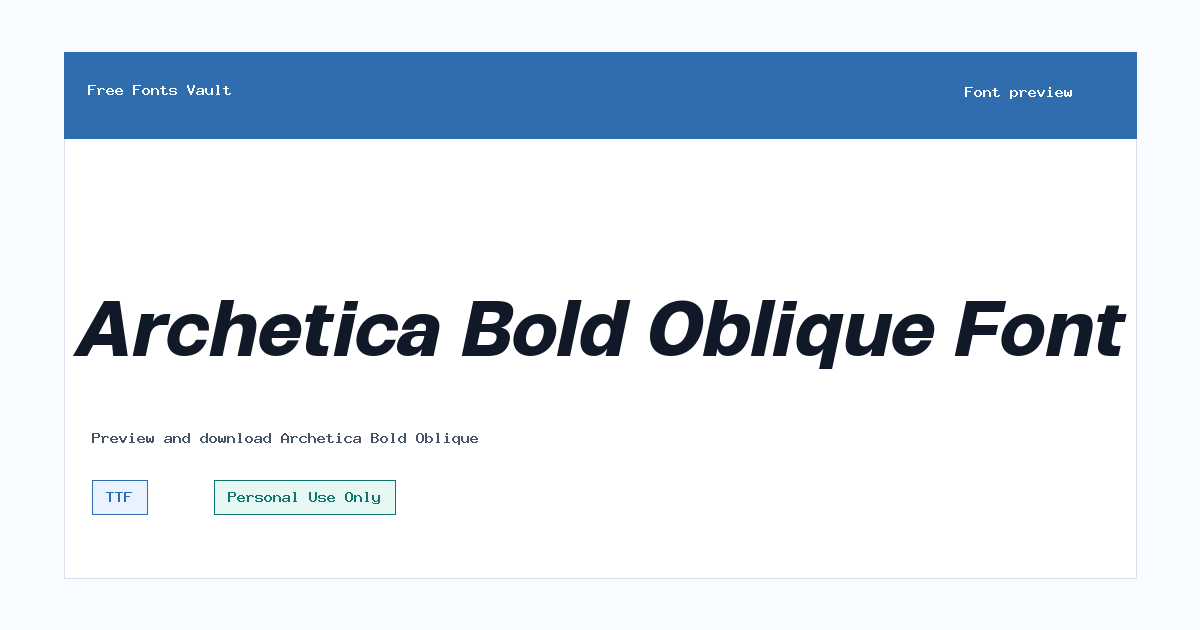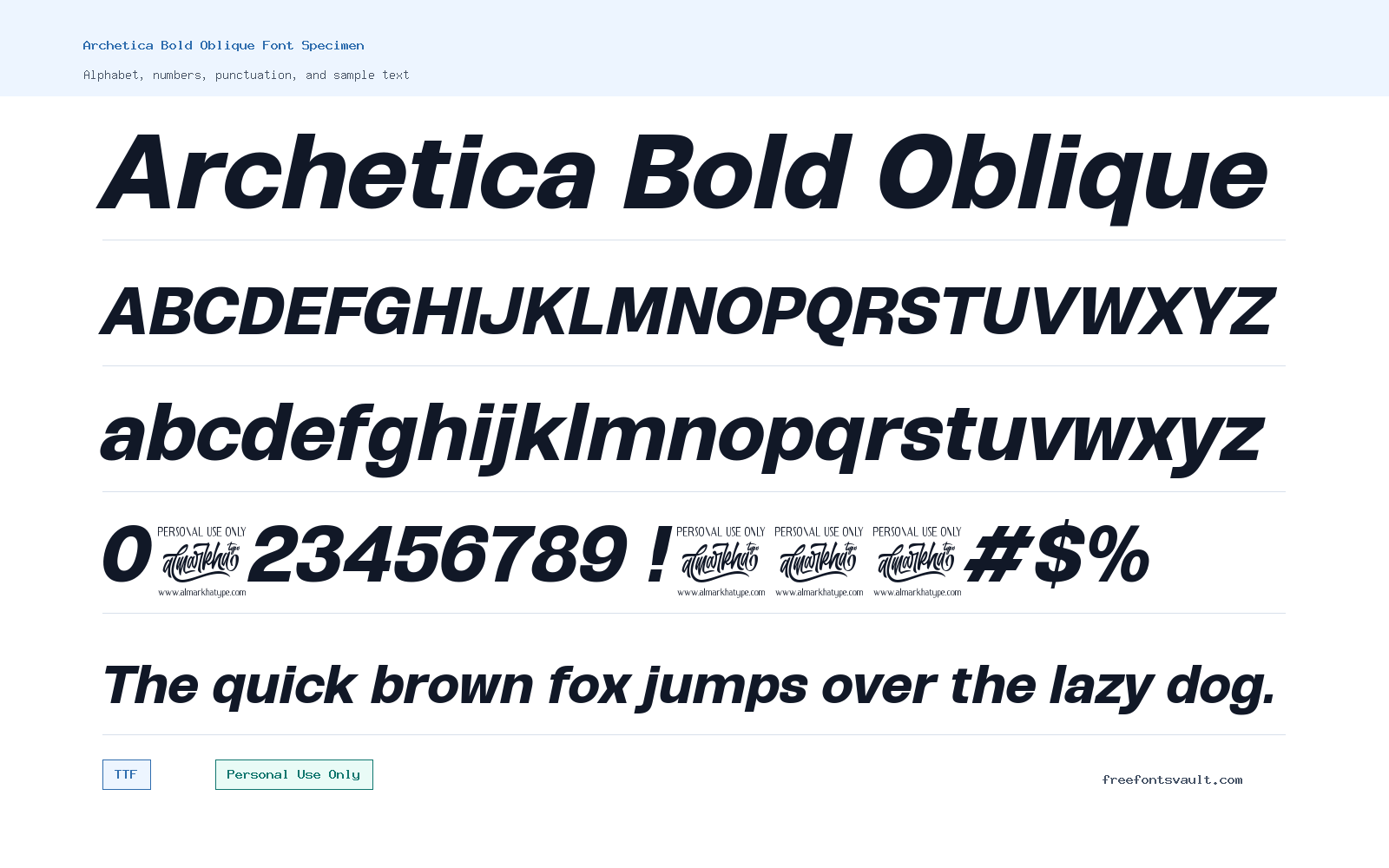
Archetica Bold Oblique
- Designer Ridwan Fadilah & Malik Wisnu
- Foundry Almarkhatype
Archetica Bold Oblique font.
Archetica Bold Oblique is a bold italic sans serif font with a forward-leaning stance, useful when you want display text to feel firm, active, and clean without moving into decorative lettering.
About Archetica Bold Oblique
Archetica Bold Oblique works best as a strong display face rather than a quiet reading font. Its bold weight gives words a solid presence, while the oblique angle adds motion and emphasis. That combination makes it suitable for short text such as titles, poster lines, social graphics, logo mockups, section headers, packaging drafts, and web hero concepts. Because the style is both heavy and slanted, it naturally asks for attention, so it is most effective when used in a limited way rather than across long paragraphs.
- Bold 700 weight with an italic or oblique style for strong emphasized text
- Sans serif letterforms suited to clean display layouts, headings, and visual branding drafts
- Useful for short titles, logo experiments, posters, social media artwork, and web mockups
- Works best when paired with a simpler body font for longer reading sections
- Logo concepts and wordmark mockups that need a bold forward-leaning look
- Poster headlines, event graphics, and promotional title text
- Website hero headings, landing page mockups, and banner typography
- Social media quote cards, thumbnails, and short announcement designs
- Packaging drafts, label concepts, and bold typographic accents
- Personal design experiments where a clean italic sans serif is needed
Archetica Bold Oblique is credited to Ridwan Fadilah and Malik Wisnu, with Almarkhatype listed as the foundry. The related designer or foundry link points to almarkhatype.com.
What kind of font is Archetica Bold Oblique?
It is a bold italic sans serif style. The 700 weight gives it a strong appearance, and the oblique style makes the text feel more dynamic.
What is Archetica Bold Oblique best used for?
It is best for short display text such as logos, poster headlines, web hero headings, social media graphics, packaging drafts, and typographic accents.
Can I use Archetica Bold Oblique for body text?
It is not the most comfortable choice for long reading. Use it for headings or emphasis, then pair it with a simpler regular font for paragraphs.
Who designed Archetica Bold Oblique?
The font is credited to Ridwan Fadilah and Malik Wisnu, with Almarkhatype listed as the foundry.
Should I adjust spacing when using this font?
Yes, it is worth testing spacing, especially in uppercase logos, posters, and large headlines. Bold slanted letters can feel tight if the text is set too closely.